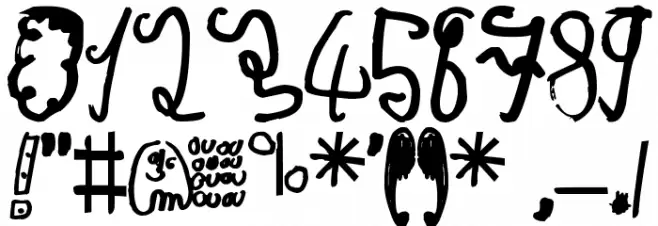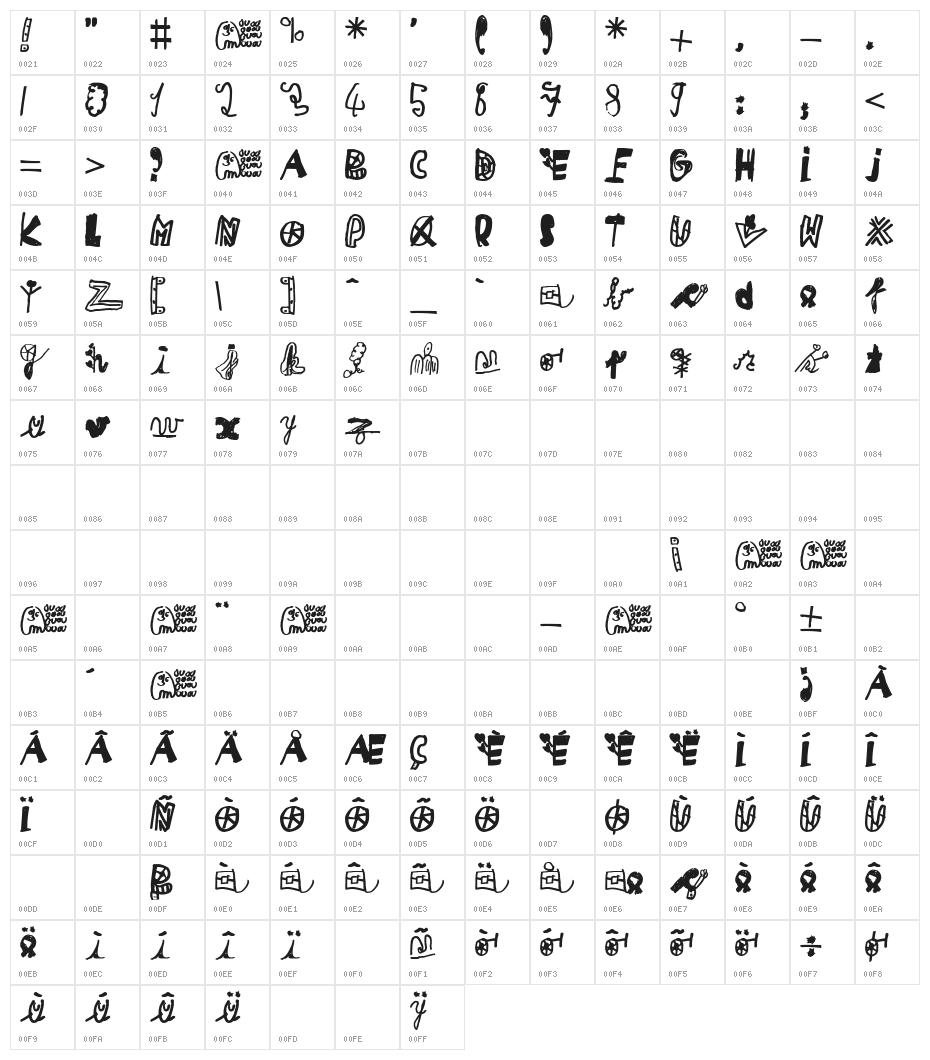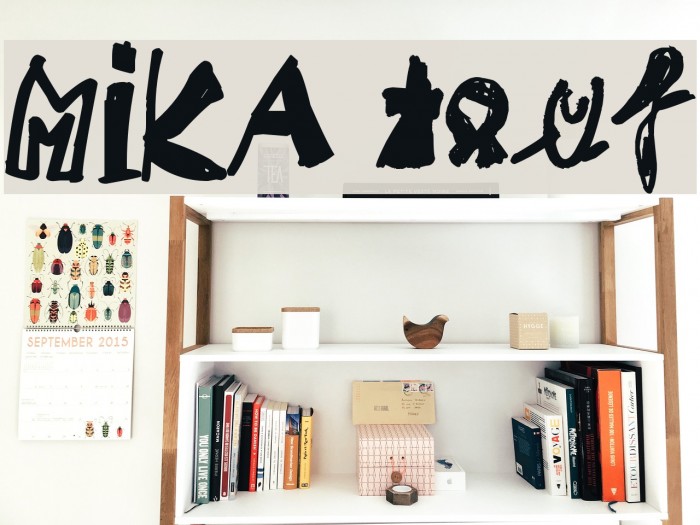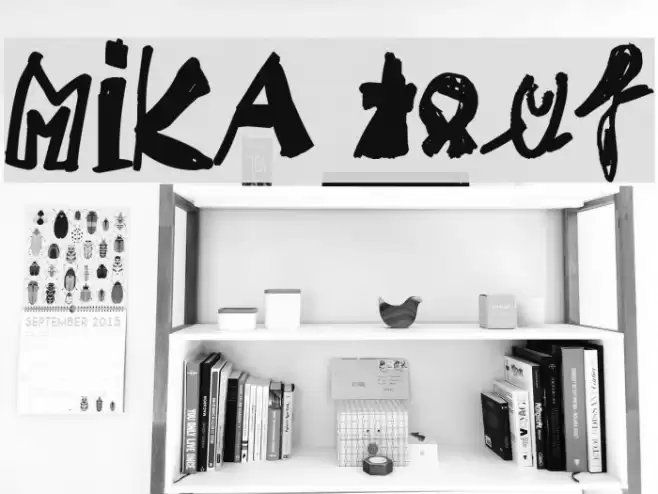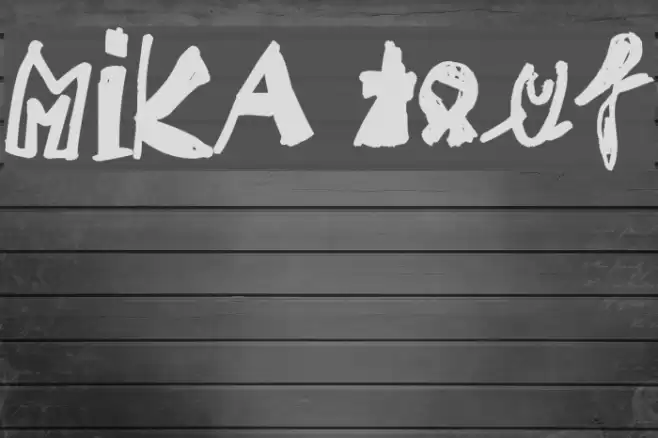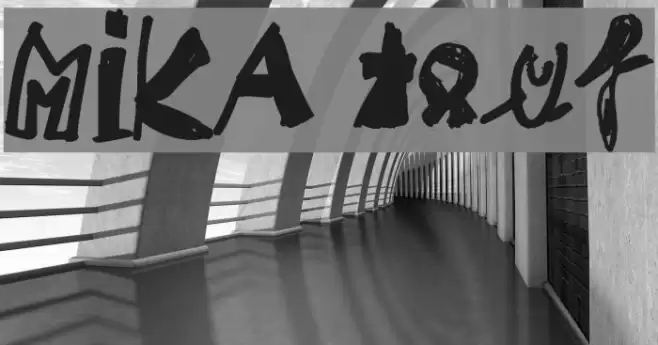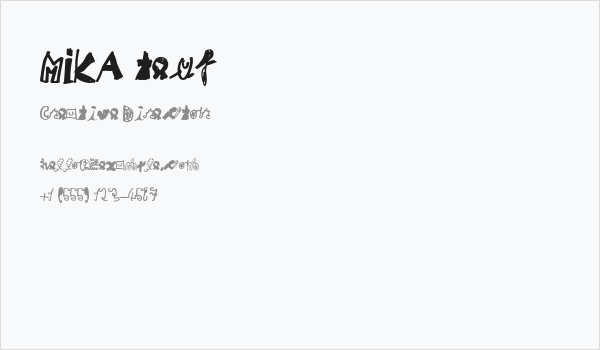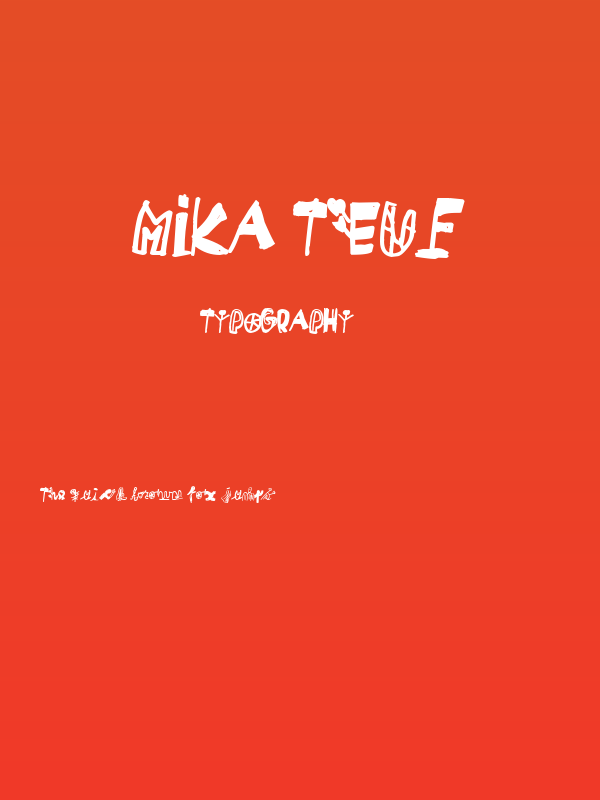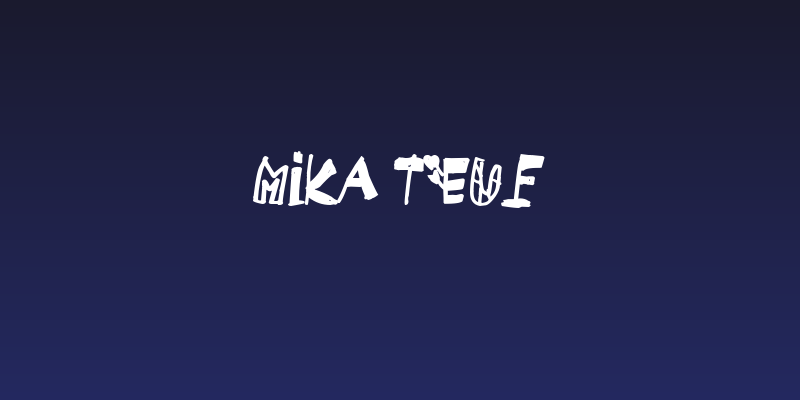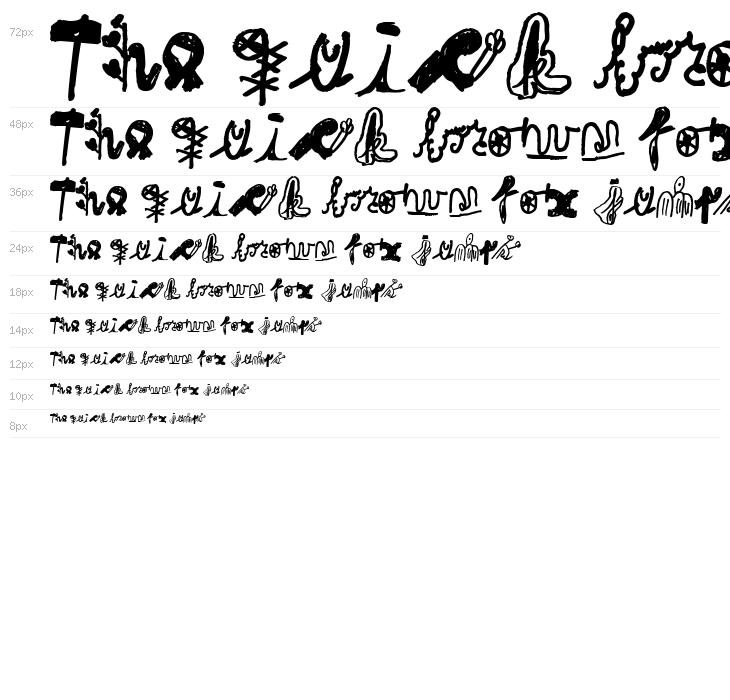
MIKA teuf Font
MIKA teuf Description
This font is a highly creative and artistic display typeface, characterized by its bold and expressive letterforms. Each character is uniquely styled, with a playful and whimsical approach that incorporates various shapes and patterns. The uppercase letters are particularly bold and dynamic, featuring a mix of geometric and organic elements. The lowercase letters continue this theme, with some characters appearing almost abstract in their design. Numbers and special characters are equally imaginative, adding to the font's overall eclectic and unconventional style. This font is perfect for projects that require a strong visual impact and a sense of individuality.
| Overall Style | Artistic, Whimsical |
| Use Case | Headlines, Posters, Artistic Branding |
| Proposed Projects | Ideal for creative projects such as posters, album covers, and branding that require a distinctive and artistic touch. |